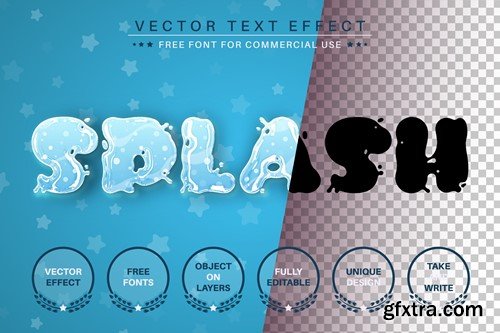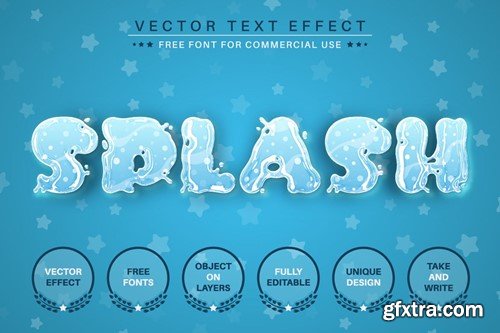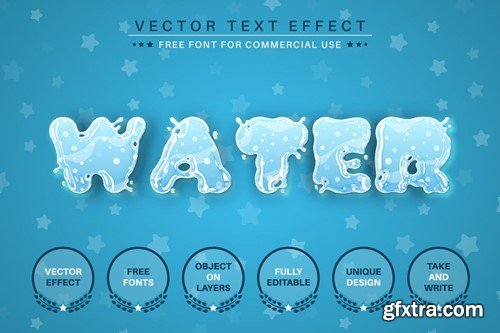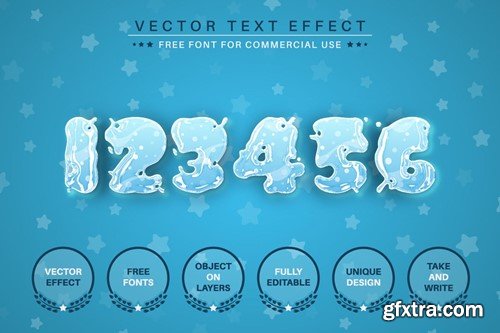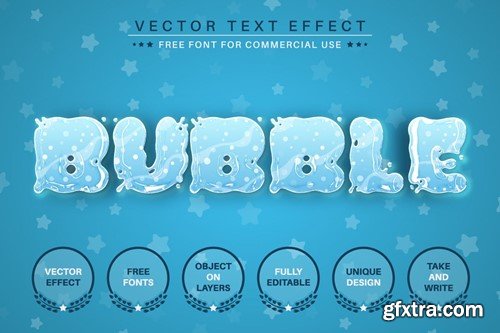
Hello! I'm happy to introduce my new text effect "Water Splash". Just write your word and the effect will apply! Be as creative as you like to be in expressing yourself using this unique “Water Splash”. Effect is perfect for any project that needs a unique handy touch whatever else your imagination leads you to! Vector format! There is no size limit. If you need really big ones, you are equipped with AI, EPS files versions as well. The file can be edited in Adobe Illustrator CC2014 or higher. What will you get: Hope you like it! Best regards, Alexander Gusev